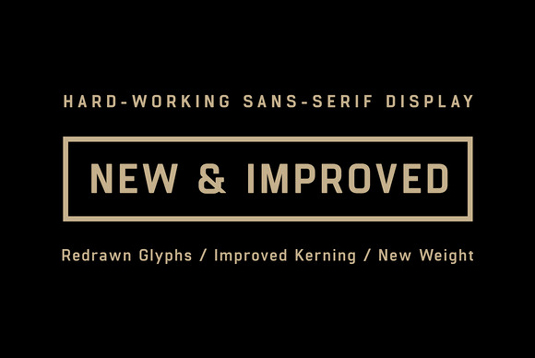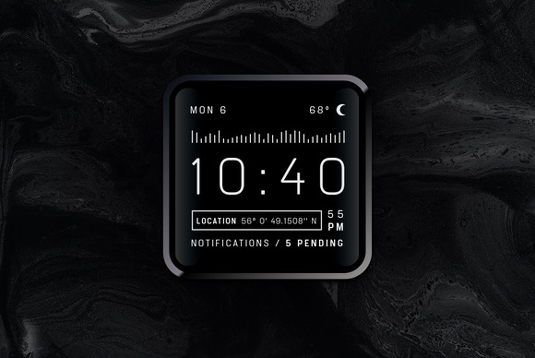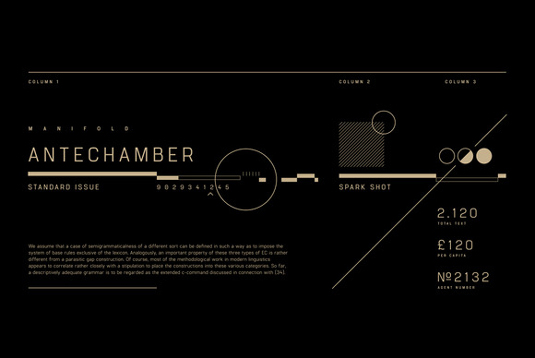
Font of the day: Manifold
Each day of the week we showcase a new font – today it's Manifold by Connary Fagen.
Manifold by Connary Fagen
Type designer Connary Fagen is behind today's font of choice, Manifold. "Manifold is a utilitarian typeface, inspired by the cold precision of a computer terminal, softened by modern design," he comments. "Manifold's unified letterforms and tall x-height are great for user interfaces, or track it out wide for a sophisticated look."